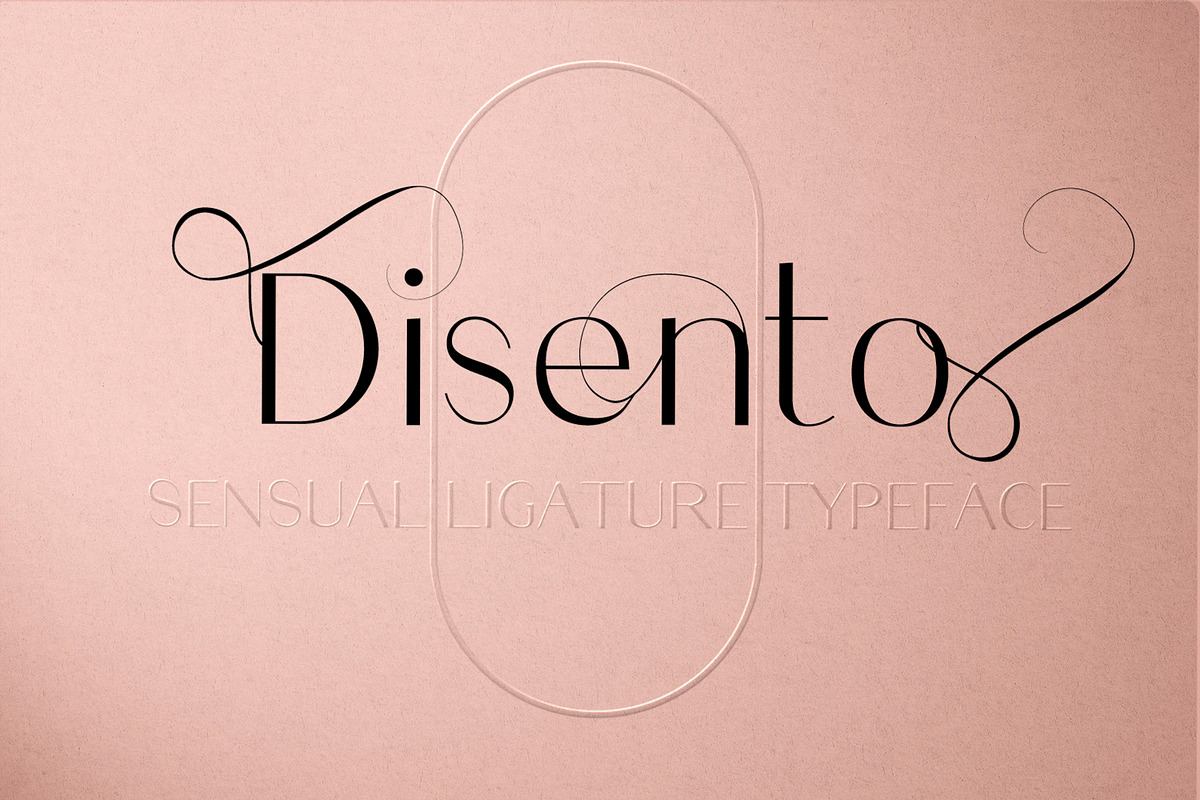
Please note, to use this font for commercial purposes, you must purchase the full version. Disento Sensual is an elegant and stylish ligature font that blends modern design with refined letterforms. Perfect for logos, branding, invitations, and creative projects, this font adds a sophisticated and sensual touch to your designs. Whether you're working on a luxury brand, a high-end event, or a chic marketing campaign, Disento Sensual brings class and grace to your work. Test it out and enjoy free download access for personal use. Experience the graceful beauty of Disento Sensual Ligature Font Free Download before purchasing the commercial license. Add an elegant, sensual flair to your designs with Disento Sensual.